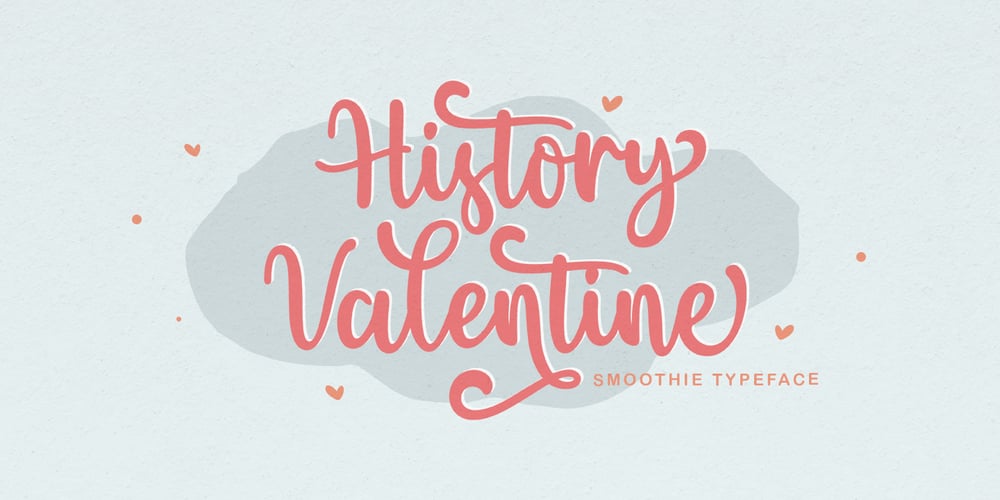
History Valentine Font Family was designed by Muhajir and published by Skinny Type. History Valentine contains 1 styles and family package options. Proudly Present, History Valentine Font.History Valentine is a Modern Handwritten Font.History Valentine is perfect for product packaging, branding project, megaazine, social media, wedding, or just used to express words above the background.History Valentine also multilingual support.Enjoy the font, feel free to comment or feedback, send me PM or email.Thank you!